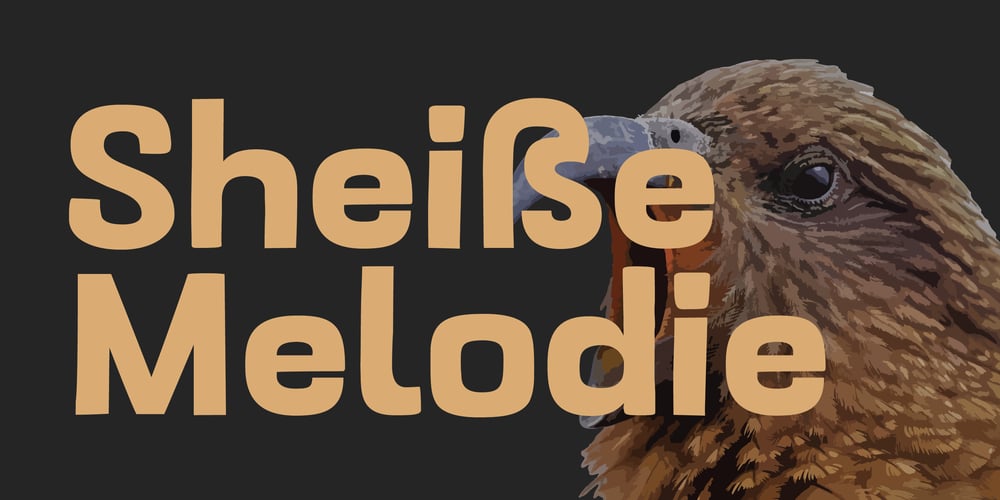
Kruda Handcrafted Sans Font Family was designed by Fadhl Waliy ul Haqq and published by Akufadhl. Kruda Handcrafted Sans contains 30 styles and family package options. Kruda is a Handcrafted display sans with 3 widths and 5 weights with accompanying slanted version. inspired by a vintage grotesk on a worn out signs and this was an initial sketch for our typeface Naratif, but it went too far. so we completed the language support for LATIN, CYRILLIC, and GREEK. and decided to take the risk to release it.